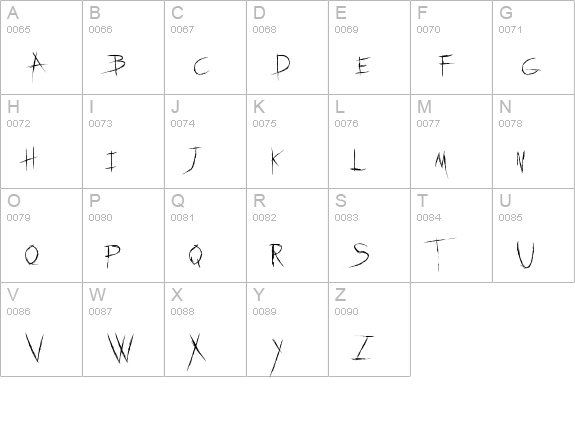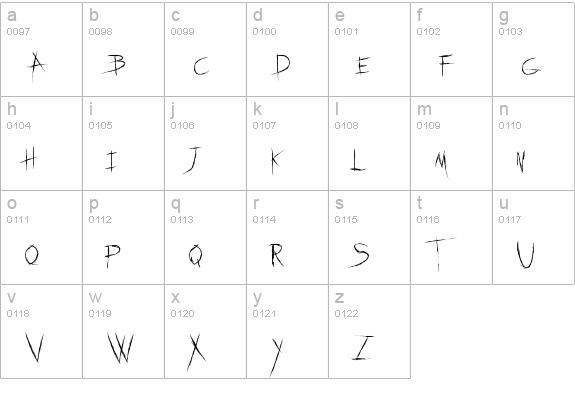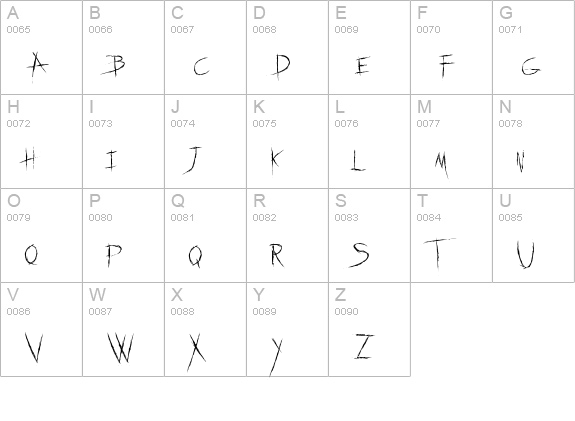
dead feather Font Details
Introducing the captivating Dead Feather Font, a beautifully crafted typeface that exudes both elegance and mystery. This unique font draws inspiration from the delicate intricacies of feathers, showcasing a perfect balance between delicate curves and bold lines. With its versatile nature, Dead Feather Font effortlessly adapts to various design projects, making it an ideal choice for anything from logo designs to wedding invitations, editorial layouts to social media graphics. Its timeless appeal adds a touch of sophistication to any project, leaving a lasting impression on its audience. The exquisite details and fine craftsmanship of Dead Feather Font truly make it stand out from the crowd. Each character is meticulously designed, displaying a perfect blend of organic shapes and sharp edges. The result is a stunning visual experience that captures attention and sparks imagination. One of the most remarkable qualities of Dead Feather Font is that it is freely available to download at FontsMarket.com. This means that designers, creatives, and enthusiasts alike can easily access this remarkable font without any cost. Such accessibility allows for endless possibilities, empowering users to bring their visions to life without any barriers. So whether you are a professional designer looking to add a touch of elegance to your latest project or an aspiring artist seeking to make a statement, Dead Feather Font is the perfect choice. Its seamless integration, captivating aesthetics, and the fact that it is freely available make it a must-have font for any creative endeavor. Download Dead Feather Font today and embark on a journey of artistic exploration like never before.